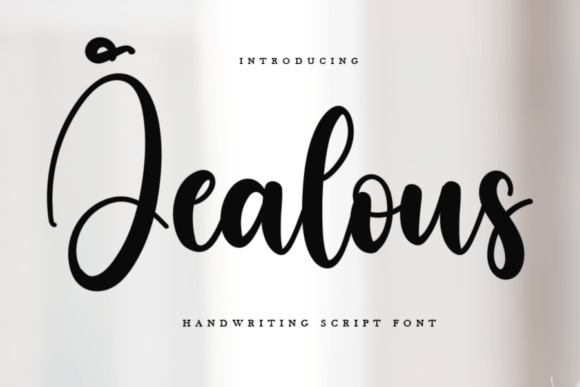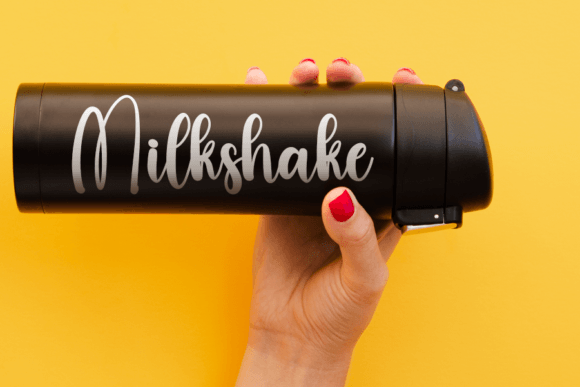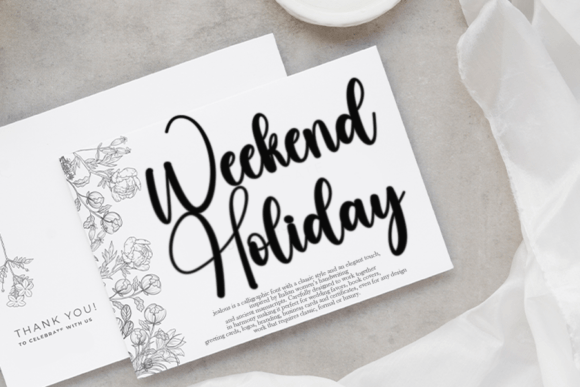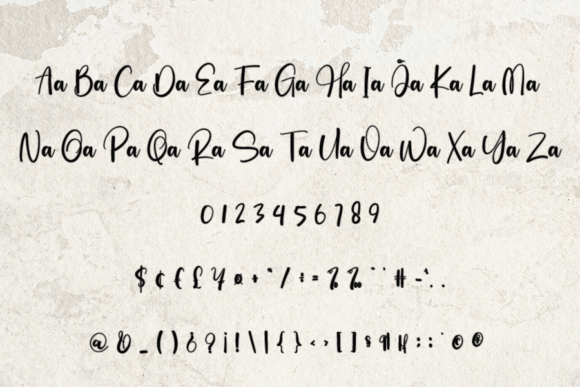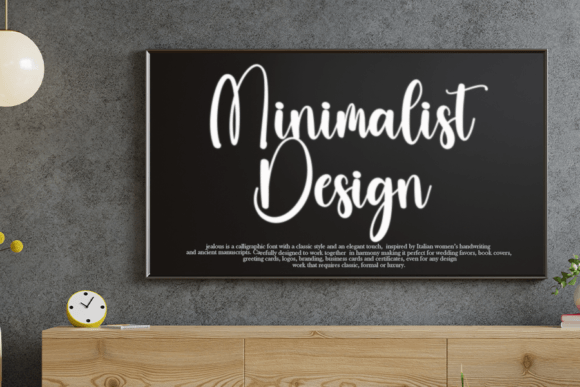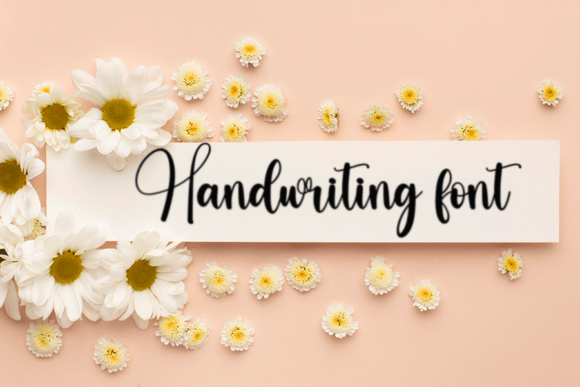
Jealous Font
What Is Jealous Font?
Jealous is a stylish handwritten font that perfectly blends classic calligraphy with a fresh, modern touch. With its smooth strokes and balanced forms, this font elevates every design by adding an elegant, timeless look. Because it was crafted with great attention to detail, Jealous suits both personal and professional projects.
You’ll love how easily it transforms your ideas into polished, eye-catching visuals.
Jealous is a versatile font ideal for many creative applications. For example, it’s an excellent choice for wedding invitations. Whether you’re designing formal event stationery or casual save-the-date cards, Jealous adds a refined and warm feel.
It also works beautifully for logos and branding. If you want your business to feel sophisticated yet approachable, this font helps you create a distinct, memorable identity.
Additionally, Jealous is perfect for social media graphics. Whether you’re posting quotes, announcing promotions, or sharing special news, its graceful lines will make your content stand out.
You can also use Jealous for packaging and labels to give your products a premium, cohesive look. From event signage and greeting cards to marketing materials and personal projects, this font adapts easily to any design.
Why Should You Choose Jealous Font?
There are many reasons to add Jealous to your font library. First, it remains clear and legible at every size. Whether you’re using it for bold headlines or small captions, each letter keeps its crisp elegance.
It pairs perfectly with modern serif or sans-serif fonts, allowing you to create clean and harmonious layouts without extra effort.
Designers appreciate how professional it looks immediately, saving time while ensuring high-quality results.
Jealous Font brings elegance, clarity, and a classic feel to every project. For example, if you want your designs to feel refined and modern, this font makes it simple.
Even minimalist layouts feel more engaging thanks to Jealous’ graceful curves and balanced proportions. Whether you’re working on wedding stationery, social media graphics, or product packaging, your designs will look cohesive and premium.
Using a high-quality handwritten font also shows your attention to detail, helping you build trust and leave a strong impression.
Jealous Font is more than just a typeface—it’s a creative tool that adds sophistication and timeless beauty to every project. From invitations and logos to packaging and digital graphics, this font adapts seamlessly and elevates your work.